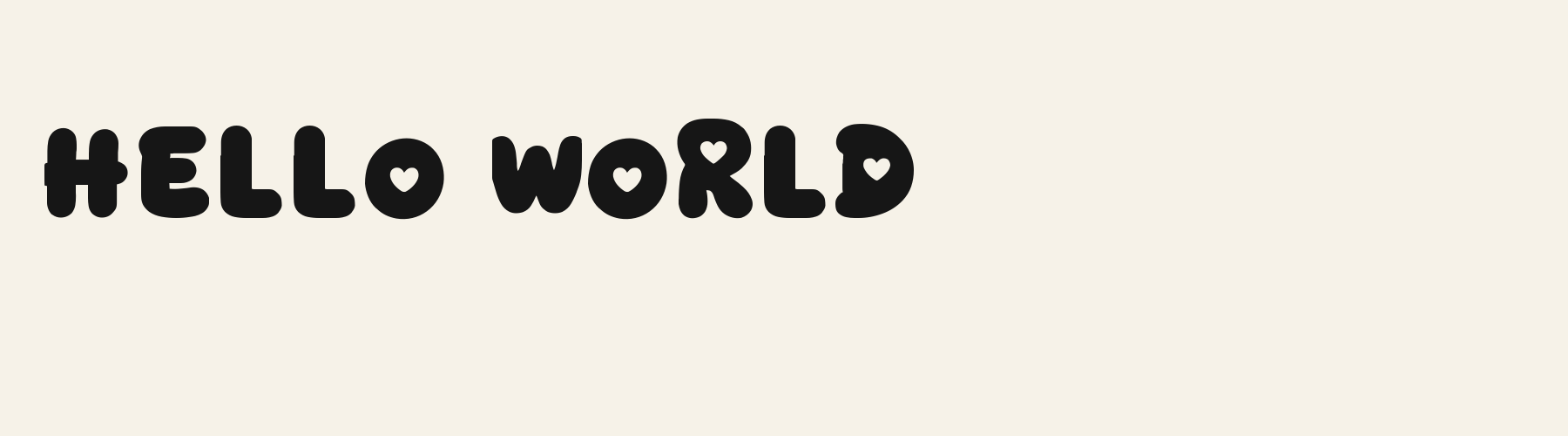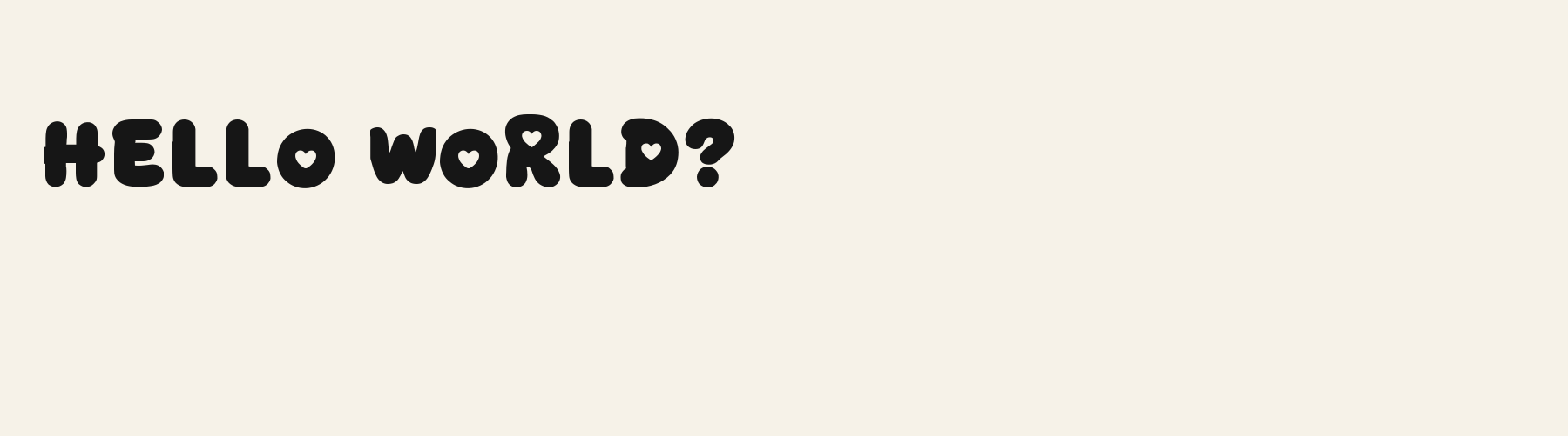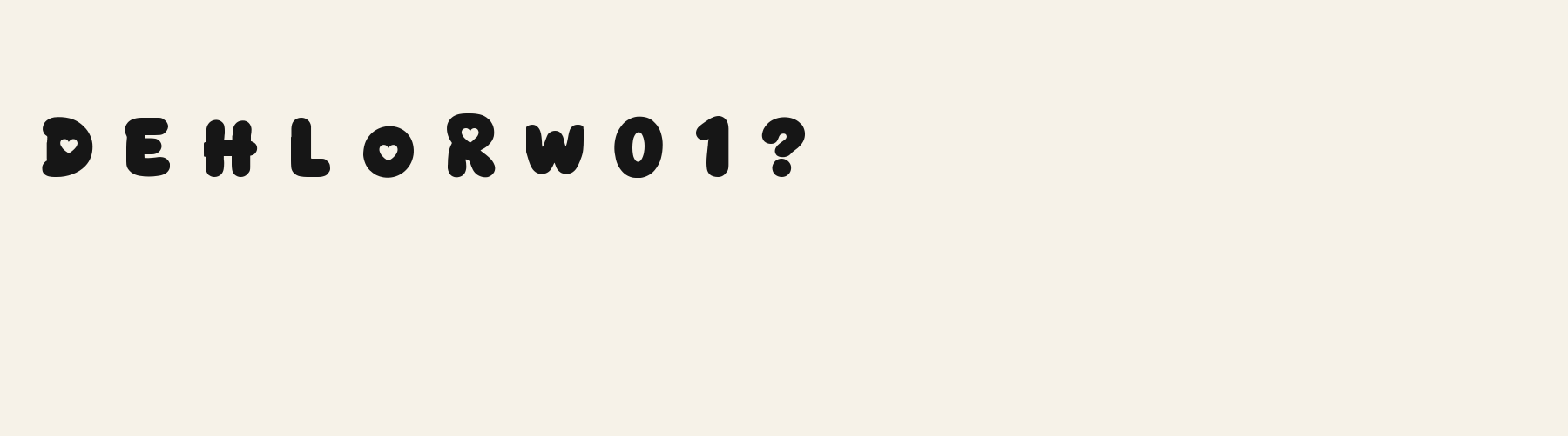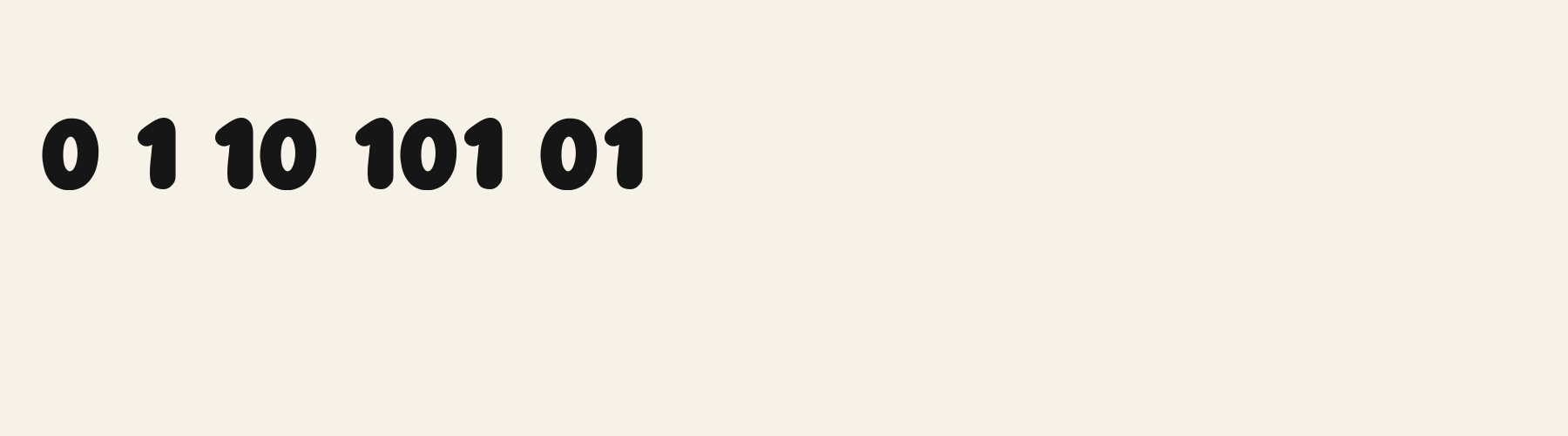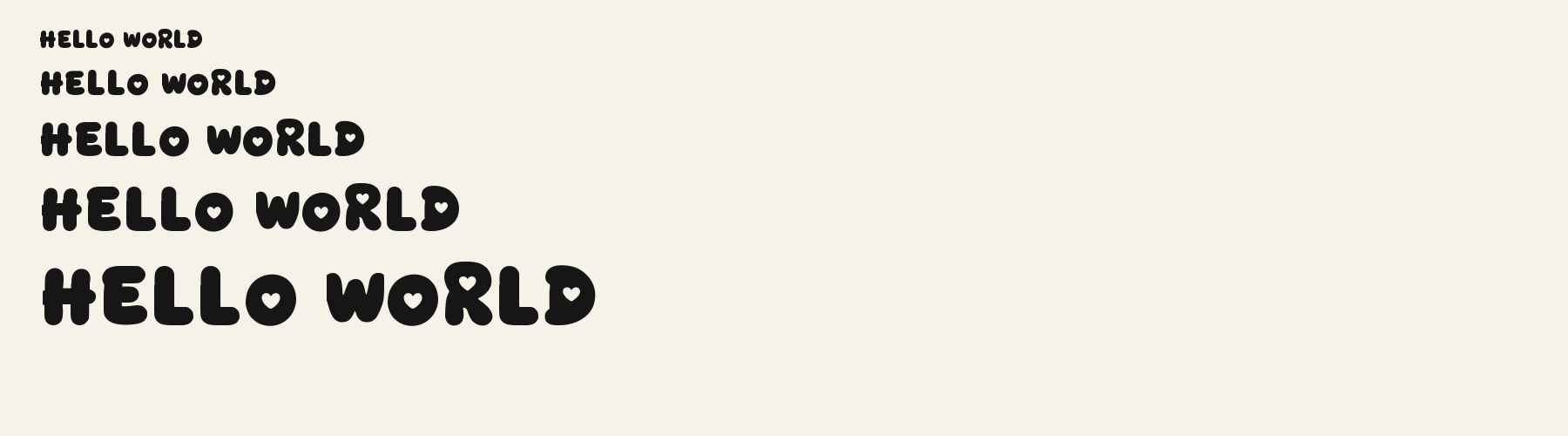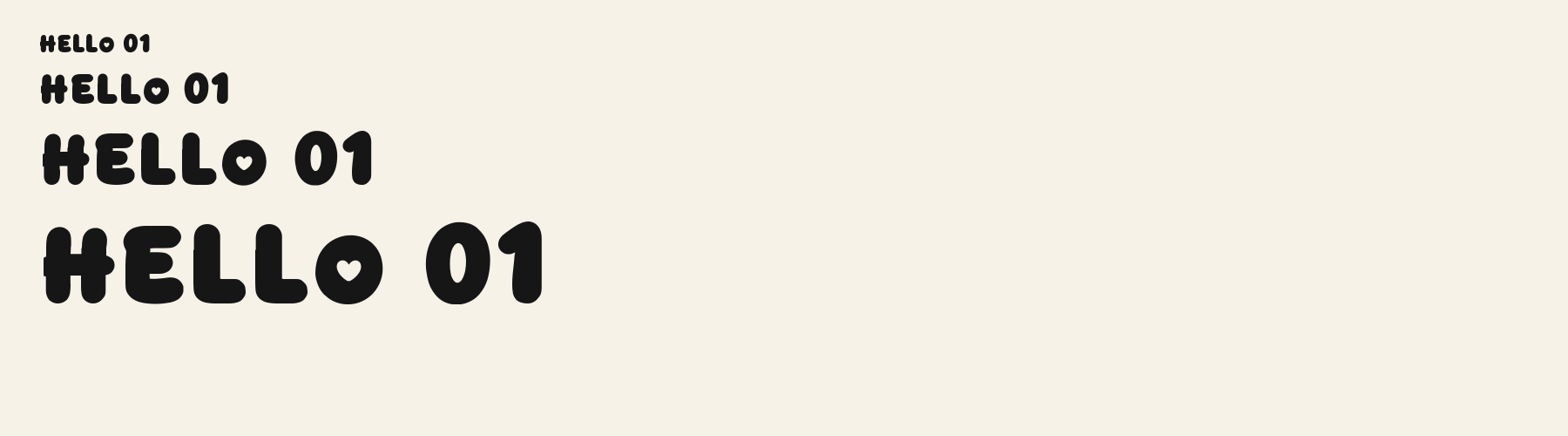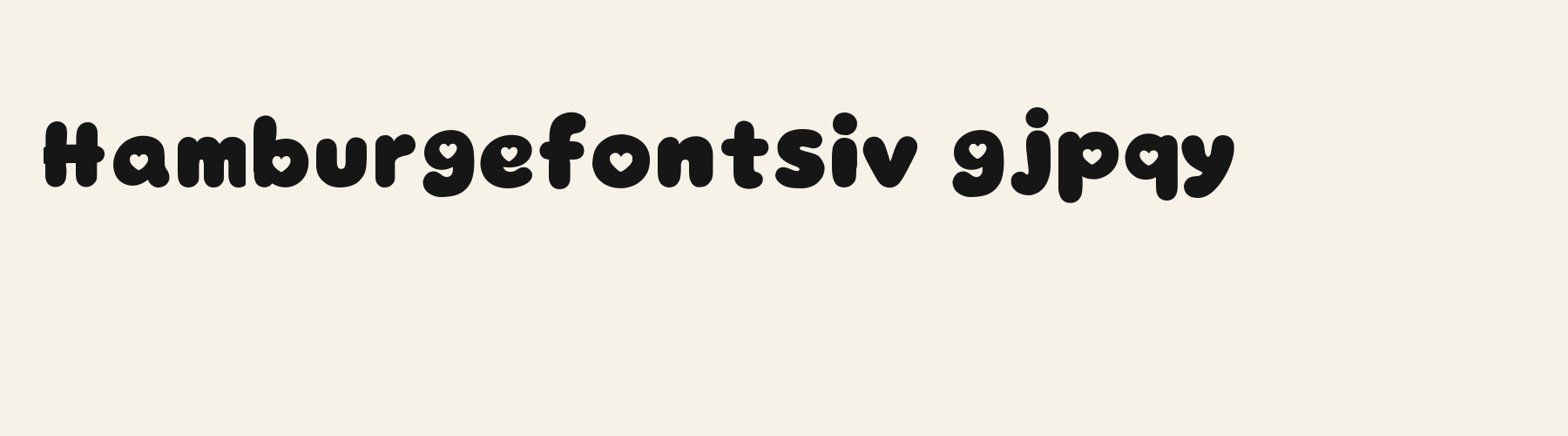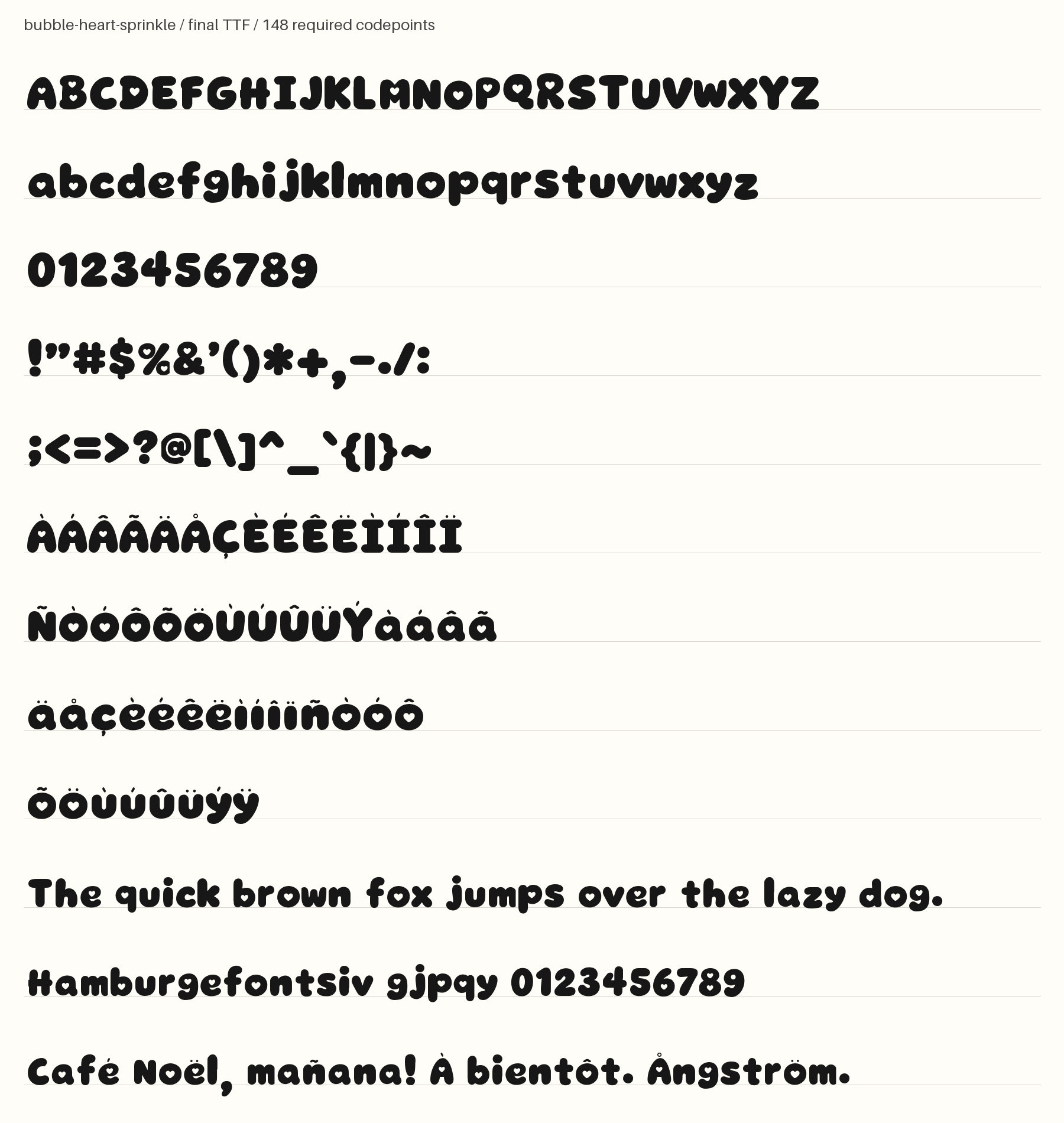
Cute Storybook Round
1 style · 148 glyphs
Display · 1 style · 148 glyphs · Version 0.1.1
Bubble Heart Sprinkle is a cute birthday cards, party signs and youthful product labels. plump monoline forms, large counters, short rounded terminals and a gentle upright stance. Best for cute birthday cards, party signs and youthful product labels.
Includes all 95 printable Basic Latin characters and 148 glyphs in total.
Verified language coverage: English (Basic Latin)